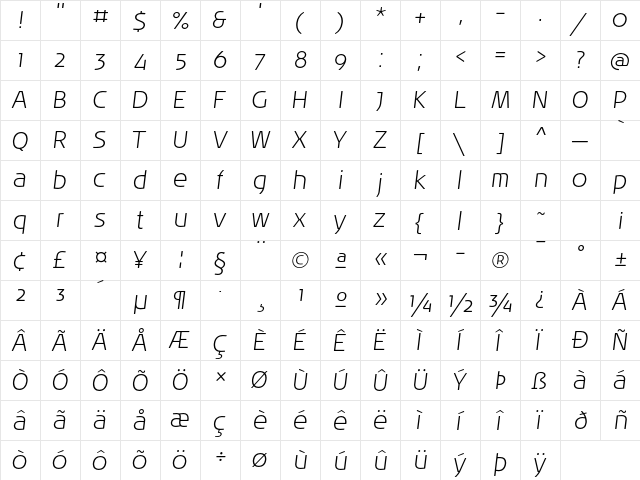
Noa LT Std Light Oblique Font Preview
| Style | Light Oblique |
| Foundry | Linotype GmbH |
| Designer | Nina Lee Storm |
Design Context for Noa LT Std Typeface
Noa LT Std takes a measured approach to typography — its balanced proportions and neutral character make it a reliable workhorse for both digital and print work. The dynamic lean of this cut emphasises speed and emphasis in any layout. Its slender proportions lend an understated elegance to any composition.